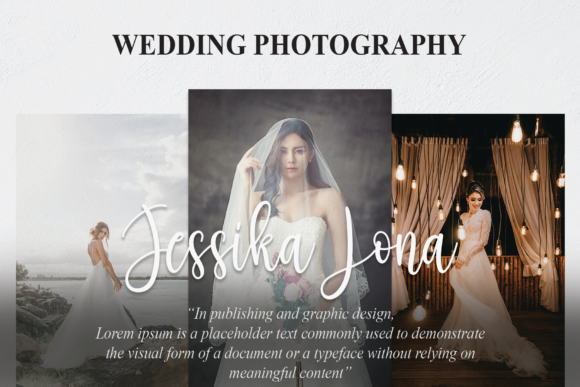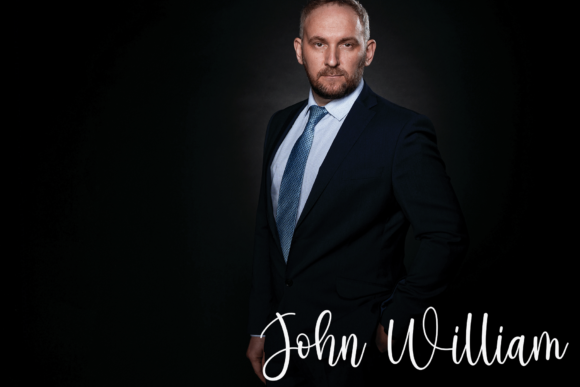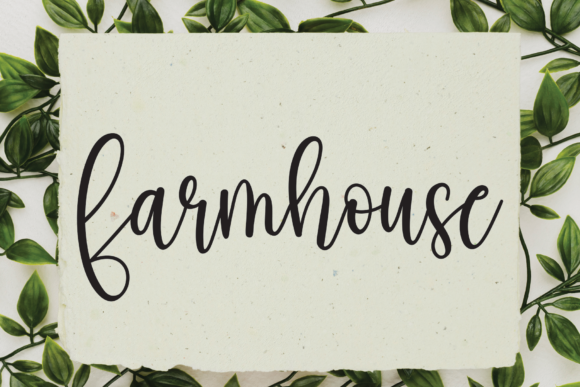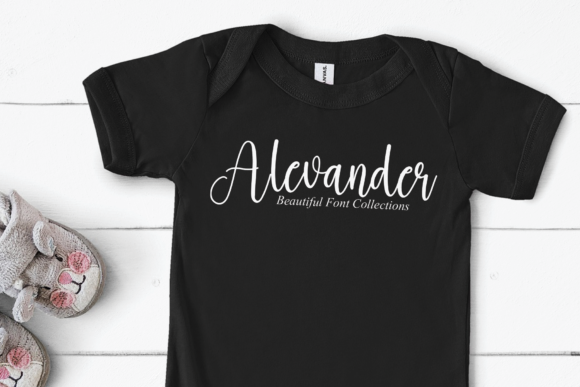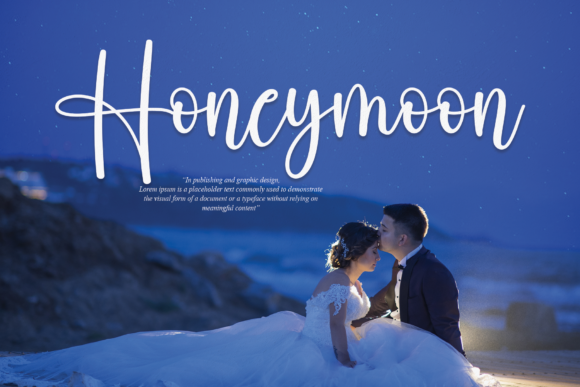
Discover the Elegance of Handwritten Design
As a designer, have you ever been inspired by the delicate strokes of a handwritten note? The way the pen glides effortlessly across the paper, leaving behind a trail of beautiful imperfections? That’s exactly the magic that the Autography Font embodies, a masterful blend of elegance and sophistication.
Designed to evoke the feel of handwritten script, the Autography Font is a versatile and refined tool for designers. With its well-balanced letters and distinctive flair, this font is perfect for creating eye-catching designs that exude creativity and style. Whether you’re crafting a wedding invitation, a logo, or a marketing campaign, the Autography Font is sure to add a touch of class and refinement to your work.
For designers, the Autography Font is a valuable asset, offering endless possibilities for creative expression. Its adaptability makes it suitable for a wide range of projects, from fine art to commercial design, and its timeless beauty ensures that it will remain a favorite for years to come.
Autography Font Key Features
- Font Style: Autography Font is a script font, ideal for creative and elegant designs.
- Character Set: Includes a wide range of characters, including uppercase and lowercase letters, numbers, and punctuation marks.
- Unique Characteristics: Features a unique, handwritten feel with subtle flourishes and connectors, adding a touch of personality to any design.
Autography Font Review
As a designer, I recently had the chance to work with the Autography font, and I’m here to share my honest thoughts.
- ✨ Elegant and sophisticated look: Autography font has a classic feel to it, making it perfect for high-end branding and design projects.
- ✨ Versatile: It can be used for a wide range of applications, from formal documents to modern websites and advertising materials.
- ✨ Good legibility: Autography font is easy to read, even at smaller font sizes, making it suitable for body text and other content-heavy areas.
- ⚠️ Limited character set: Autography font might not have as many character options as some other fonts, which could be a drawback for designers who need to work with non-English languages.
- ⚠️ May not be ideal for very small text sizes: While Autography font is generally legible, it may become difficult to read when scaled down too small.
Overall, I think Autography font is a solid choice for designers who need a high-end, sophisticated font for their projects. While it may have some limitations, its elegant look and versatility make it a great option for a wide range of applications.
For the best results, use the Autography Font in conjunction with bold or italic text to create a visually appealing effect.
Use the Autography Font to create unique and personalized titles, headings, or logos.
Experiment with different font sizes and colors to achieve a desired mood or atmosphere.
Combine the Autography Font with other creative elements, such as images or graphics, to add depth and interest to your design.